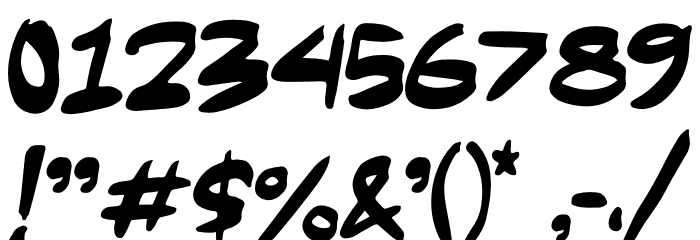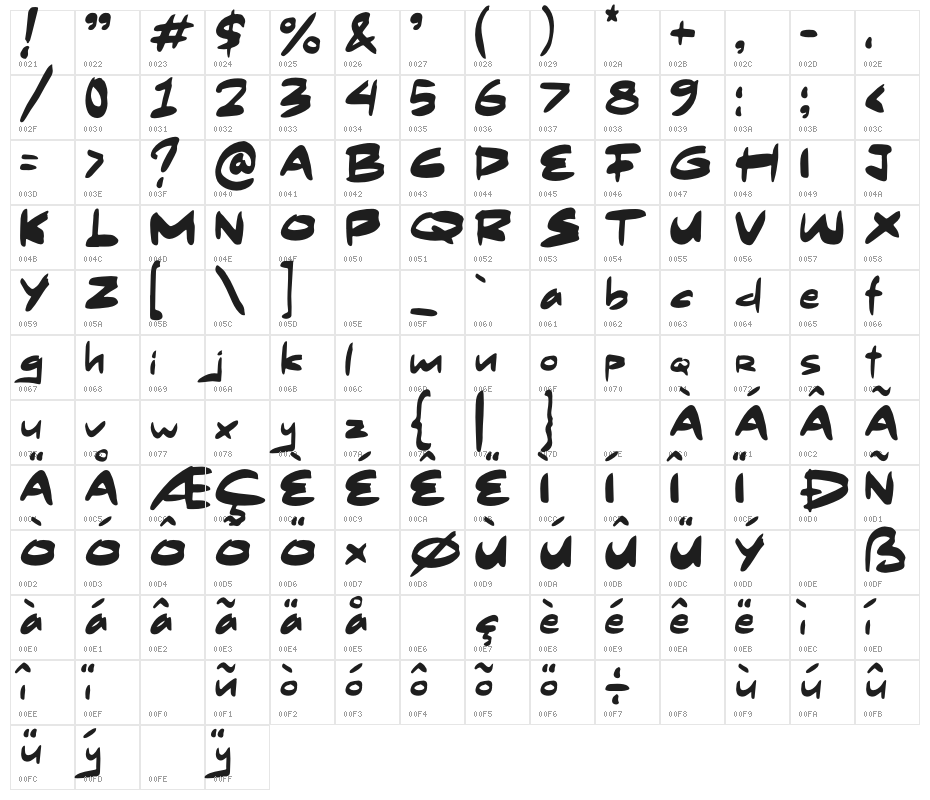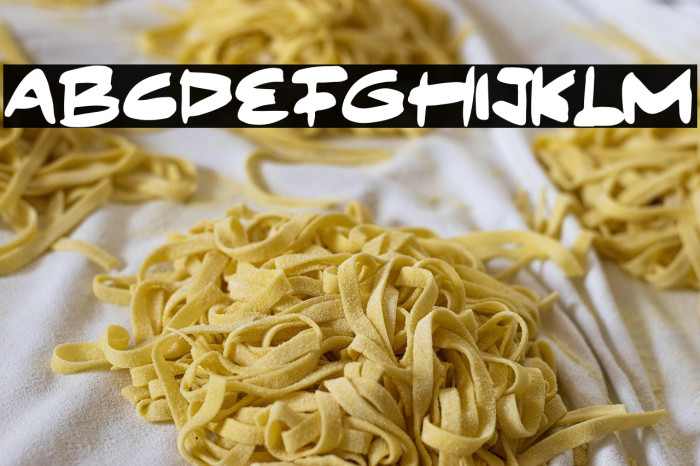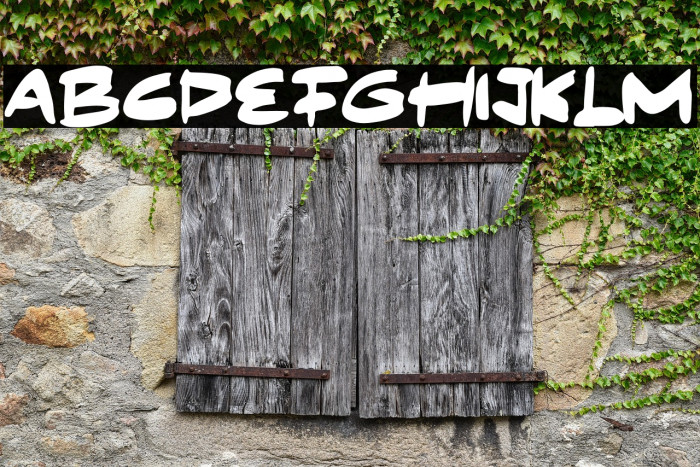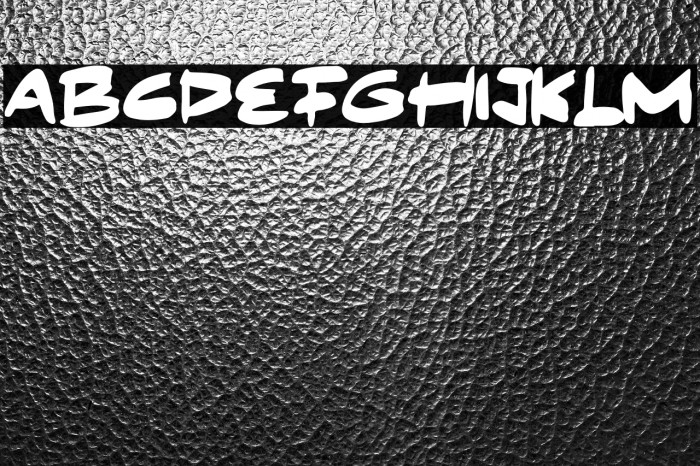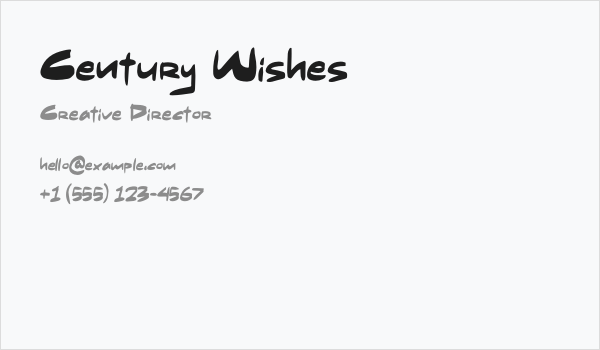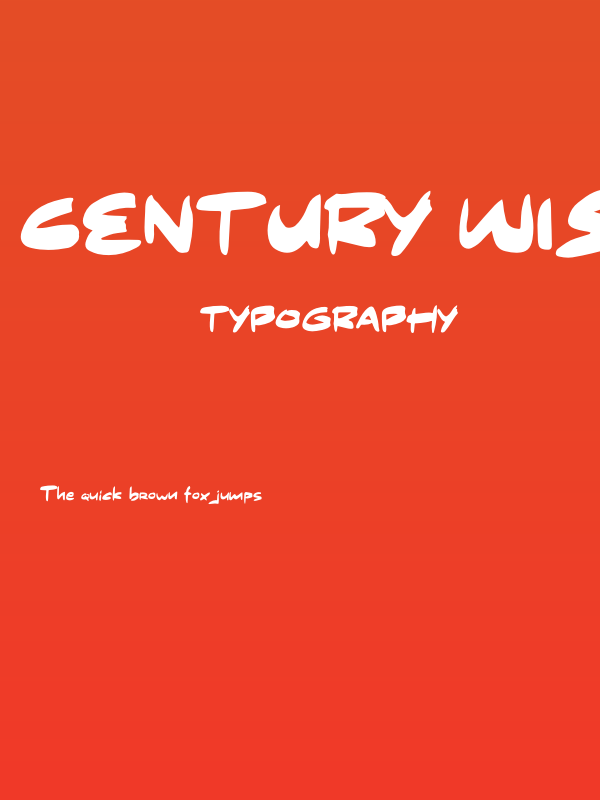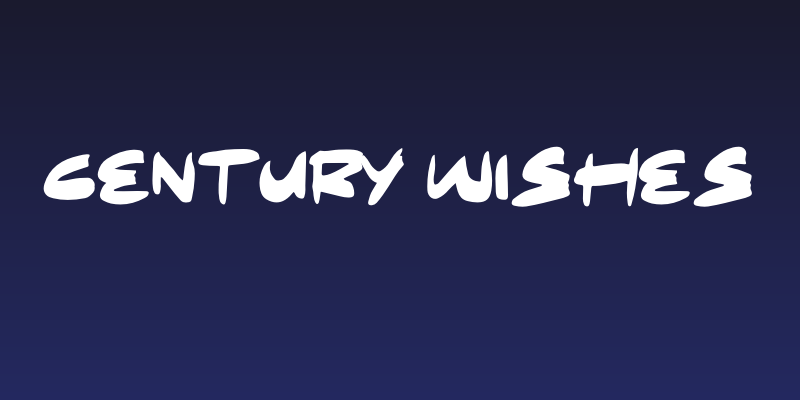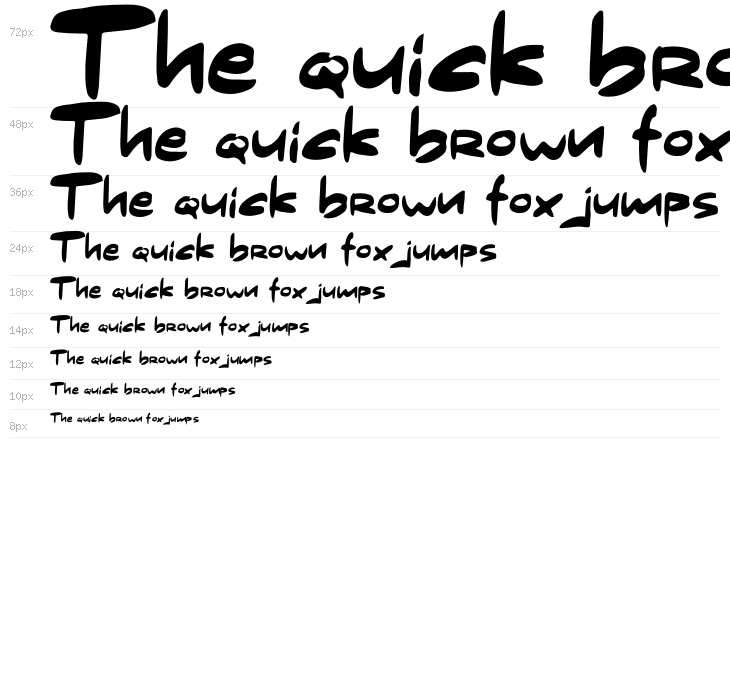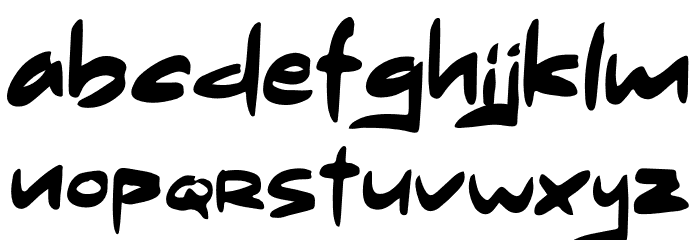
Century Wishes Font
Century Wishes Description
This font features a bold and dynamic handwritten style, characterized by its thick strokes and energetic flow. The uppercase letters are robust and slightly slanted, giving a sense of movement and spontaneity. The lowercase letters maintain a consistent style, with rounded edges and a playful appearance. Numbers and special characters follow the same bold and expressive design, making them stand out. The overall look is informal yet impactful, suitable for projects that require a personal touch.
| Proposed Projects | Ideal for greeting cards, posters, branding projects, and social media graphics where a personal and lively touch is desired. |